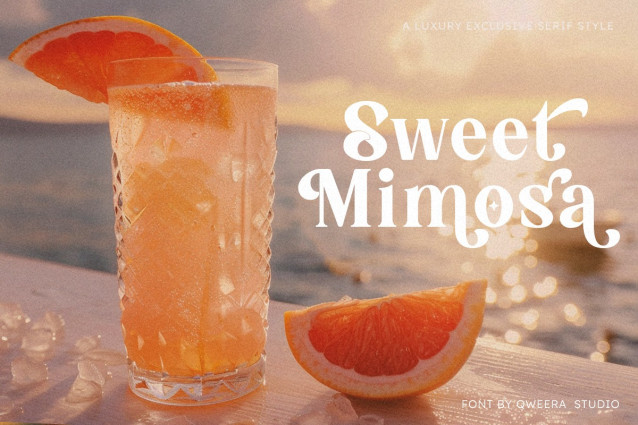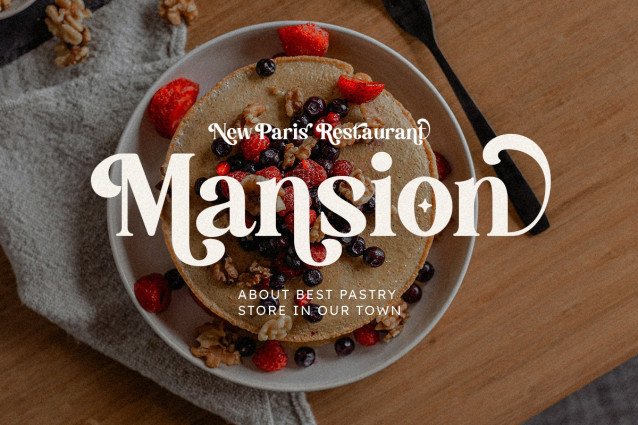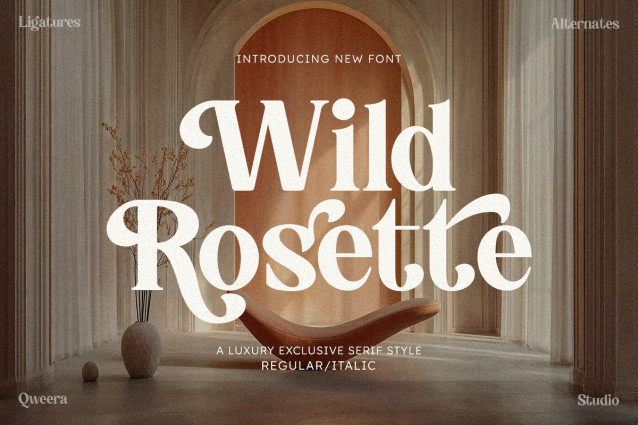
Wild Rosette Font
Wild Rosette Font is a unique serif typeface with an elegant modern retro touch. This font comes in two styles, Regular and Italic, and is equipped with stylish alternates and ligatures to enhance your creative designs effortlessly.
Perfect for a variety of design needs, including branding, posters, magazines, and premium print materials. Its modern retro character adds a unique and aesthetic feel, making it ideal for creating classy and captivating designs.
Wild Rosette ensures flexibility for every project, delivering stunning and professional design results. Transform your ideas into outstanding creations with Wild Rosette!